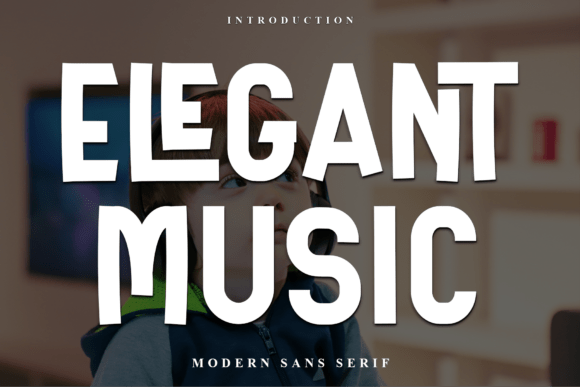
Introduction to Elegant Music Font
Elegant Music is a beautiful and eye-catching font designed with a soft, unique touch.
Its distinctive strokes give it a special character, making it meaningful and versatile for future use With various characters, it’s perfect for design projects, crafts, and other creative works.
Key Features of Elegant Music Font
Why Choose Elegant Music Font?
Elegant Music Font offers exceptional quality and versatility, making it a valuable addition to your design toolkit. Whether you’re creating for personal projects or commercial use, Elegant Music Font delivers professional results.